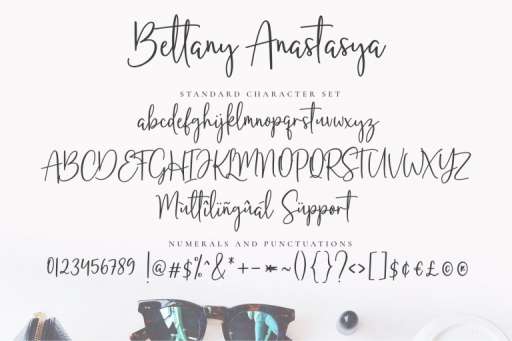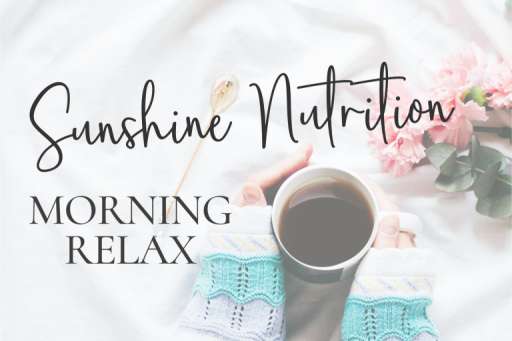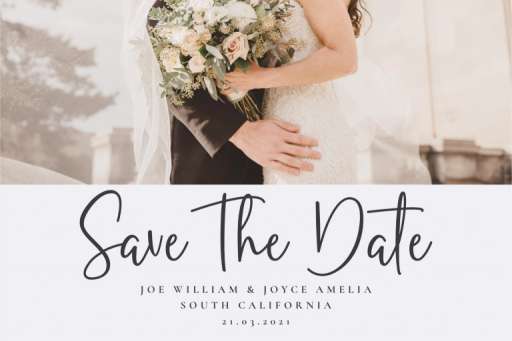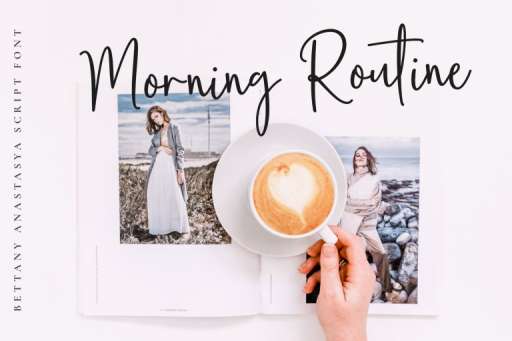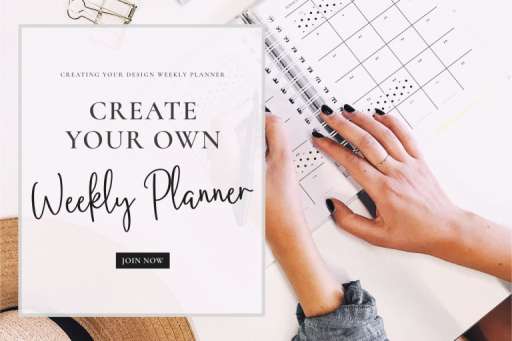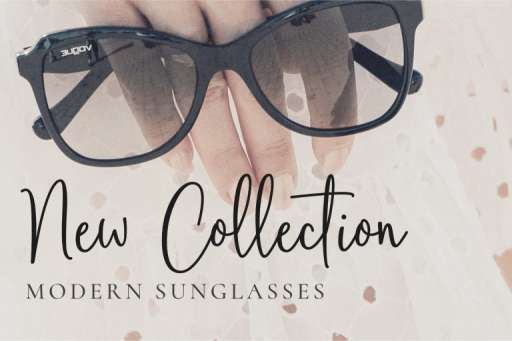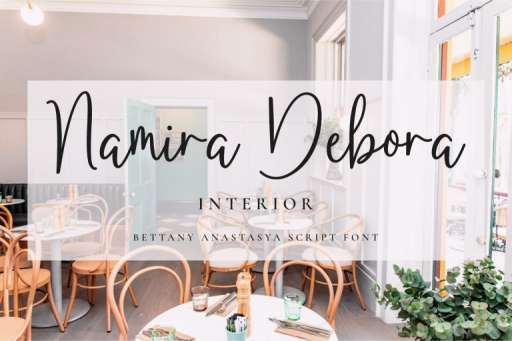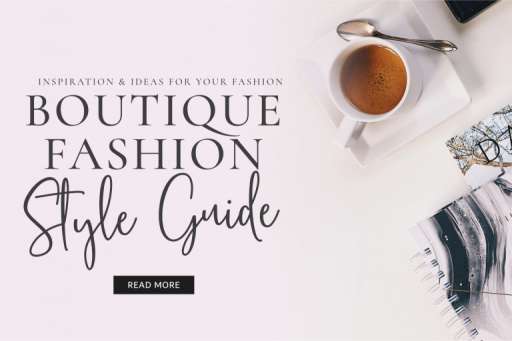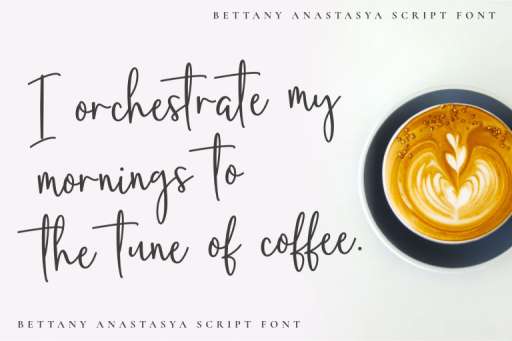
Bettany Anastasya Font
Bettany Anastasya – Handwritten Script Font
Bettany Anastasya is a handwritten script font. The bouncing playfulness mixed with romantic elegance that you can use to perfect your design
Bettany Anastasya is very good with multilingual support to complete your need. Perfect for branding, Poster, magazine, greeting card, fashion, quotes, logo, packaging, and other projects.
Bettany Anastasya Features :
• Multilingual Support